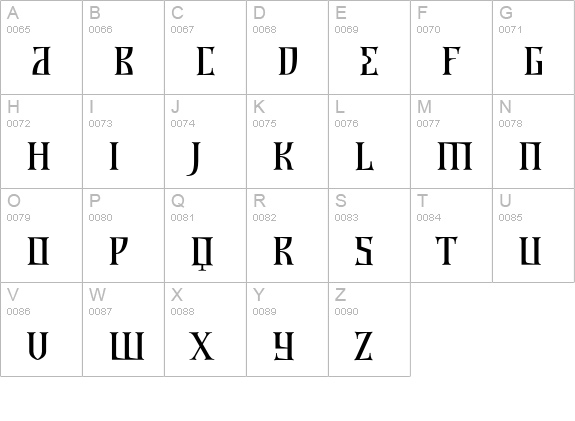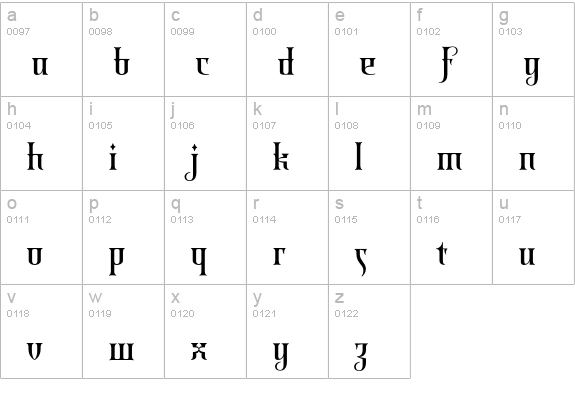
Introducing Shiraz, a stunningly elegant font that exudes sophistication and grace. With its delicate strokes and beautifully crafted letterforms, Shiraz effortlessly combines classic charm with a modern twist. This font is the epitome of timeless beauty, making it perfect for a wide range of design projects. But what sets Shiraz apart is not just its impeccable design, it is also the fact that it is completely free. Yes, you read that right. Shiraz is freely available to download at FontsMarket.com, allowing designers and creatives to access this exquisite font without any cost. Whether you're creating elegant wedding invitations, stylish branding materials, or eye-catching advertisements, Shiraz will elevate your designs to new heights. Its versatility knows no bounds, as it can be used for both print and digital applications, ensuring that your message is delivered with the utmost impact. One look at Shiraz, and you'll be captivated by its beauty and sophistication. The flowing curves and intricate details of each letter will leave a lasting impression on anyone who encounters it. It's a font that commands attention and exudes elegance. So why wait? Experience the allure of Shiraz for yourself. Download this magnificent font for free at FontsMarket.com and let your creativity soar. Whether you're a professional designer or a passionate hobbyist, Shiraz is the perfect companion to bring your visions to life. Get ready to impress with this extraordinary font that combines timeless beauty with the freedom to create.